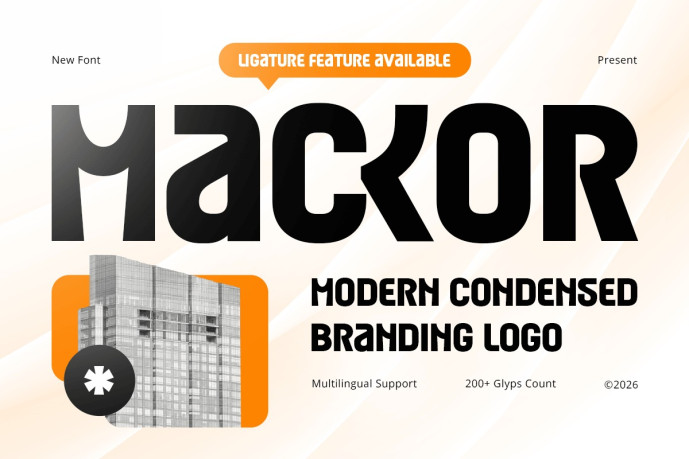
Mackor – Modern Logo Font
Designer: Dareco Studio
Mackor – Modern Condensed Branding Logo Font is a clean and professional condensed display font designed for logo creation, corporate branding, business identity systems, and modern visual communication. Inspired by contemporary branding trends and minimalist typography, Mackor combines narrow proportions with bold character to create logos that are distinctive, memorable, and highly versatile.
Featuring condensed letterforms, balanced spacing, and a refined modern structure, Mackor delivers exceptional readability while maximizing visual impact. Its space-efficient design makes it ideal for logos, headlines, packaging, editorial layouts, and digital branding where strong typography is essential.
Whether you’re creating a startup identity, designing a corporate logo, developing a modern branding system, or producing professional marketing materials, Mackor provides the precision and versatility needed to build a strong visual identity.
Mackor Font Features
Character Set: Uppercase, lowercase, numbers, symbols, and punctuation
Modern condensed letterforms optimized for logo design and branding
OpenType features ready to enhance your design needs
Mackor is Perfect For
Corporate branding and business identity systems
Modern logo and logotype design
Startup and technology branding
Editorial headlines and magazine layouts
Packaging and product branding
Website headers and digital brand assets
Marketing materials and business presentations
Contemporary display typography
Whether you’re creating a professional logo, developing a modern brand identity, launching a startup, or designing high-impact marketing materials, Mackor delivers the clarity, versatility, and bold presence of a modern condensed branding logo font crafted for contemporary brands.